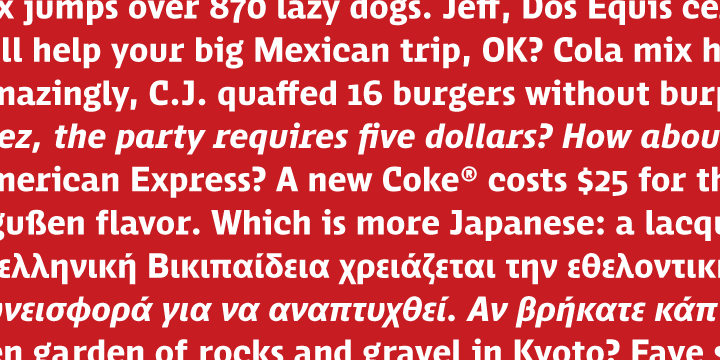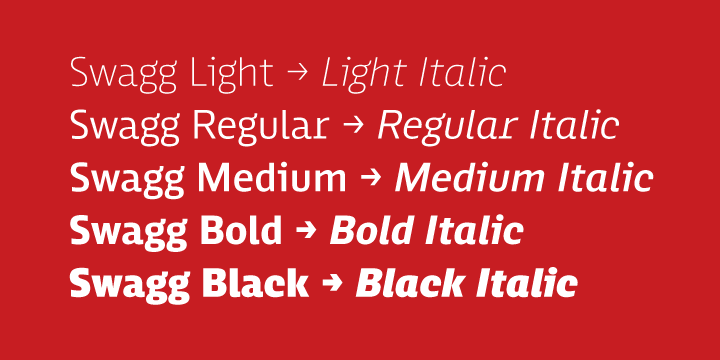
Swagg
About Swagg
Swagg is a unique and friendly sans that looks great at any size. Originally starting as a branding project, Swagg is now a full fledged family with 5 weights. Swagg is loaded with goodies like old style figures, tabular figures, true italic, arrows and…